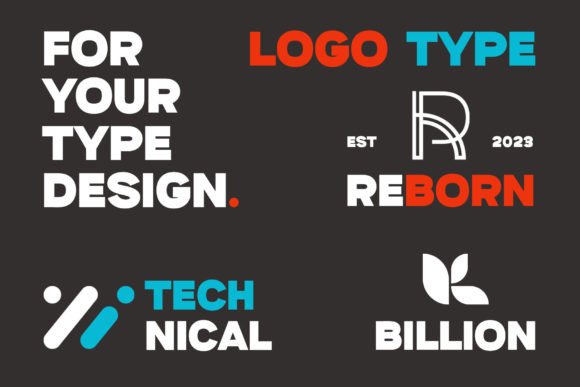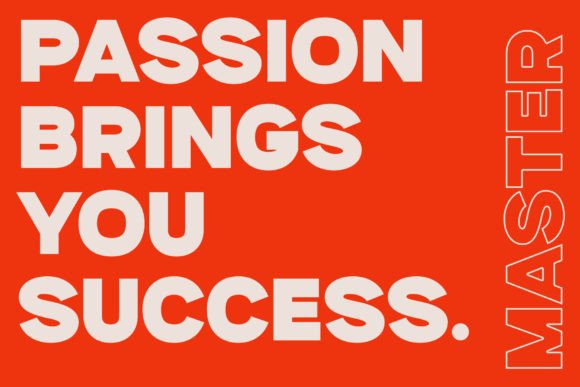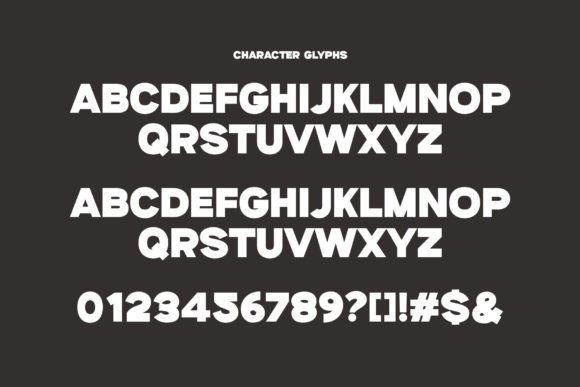
Introduction to Master Bold Font
Master Bold is perfect for giving your designs a modern, energetic feel.
It features clean, sharp lines and a bold, confident style that stands out from the crowd Its versatility makes it suitable for a variety of design projects.
Key Features of Master Bold Font
Why Choose Master Bold Font?
Master Bold Font offers exceptional quality and versatility, making it a valuable addition to your design toolkit. Whether you’re creating for personal projects or commercial use, Master Bold Font delivers professional results.